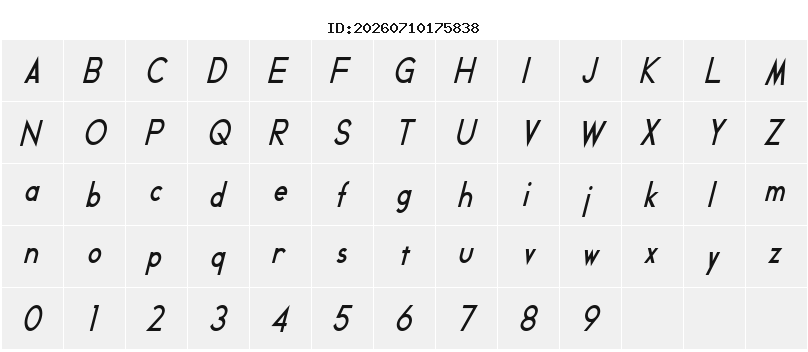
Geddes Narrow Preview
• Font Name: Geddes Narrow
• Designer: Neale Davidson
About Geddes Narrow.ttf
Geddes Narrow.ttf is a modern, elegant sans-serif font designed for ultimate readability and visual harmony. Perfect for branding, headlines, web design, and print materials.